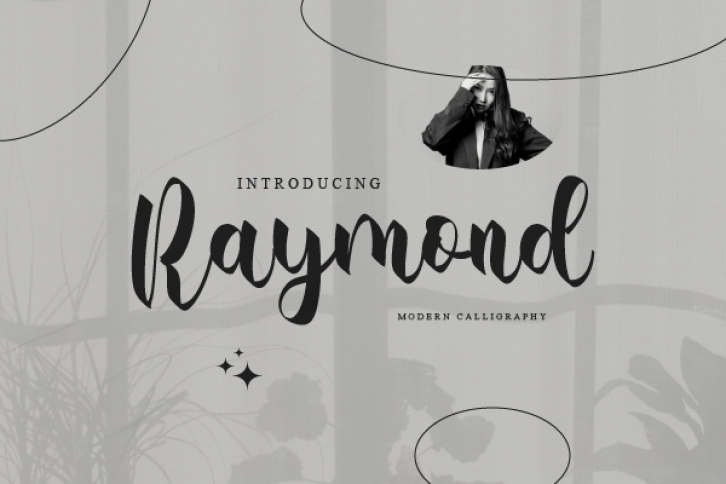
Raymond is a stylish and trendy looking handwritten font. It has beautiful and well balanced characters and as a result, it matches a wide pool of designs. Add it to your most creative ideas and notice how it makes them come alive!